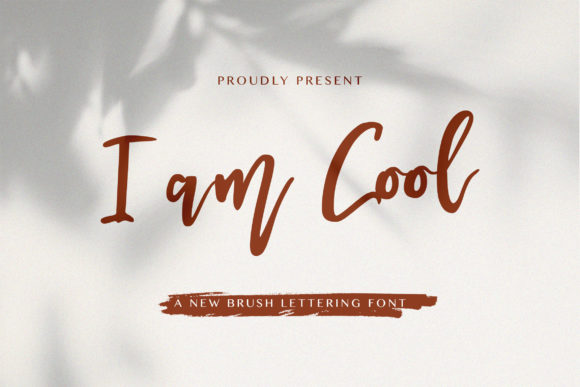
Unleash your inner creative genius with I Am Cool Font, a captivating script font that exudes a relaxed, hand-brushed charm. This exquisite font will effortlessly elevate your design projects, whether you're crafting logos, branding, or eye-catching headlines. Its exquisite curves and dynamic flow add an artistic flair that will leave a lasting impression on your audience.
Immerse yourself in the world of I Am Cool Font and experience the joy of creating designs that resonate with your unique style. Unleash your creativity and let your imagination run wild as you explore the endless possibilities this font offers. From elegant wedding invitations to trendy social media graphics, I Am Cool Font will effortlessly transform your ideas into stunning visual masterpieces.
With I Am Cool Font, you'll have the power to create designs that stand out from the crowd. Its hand-crafted charm adds a touch of authenticity and warmth, making your creations feel truly personal and captivating. Whether you're designing for print or digital media, I Am Cool Font will elevate your projects to new heights of excellence.
Step into the spotlight and let your designs shine with I Am Cool Font. Embrace the beauty of its fluid strokes and let your creativity flow freely. This font is perfect for adding a touch of elegance to your logos, branding, and marketing materials. Make a bold statement and leave a lasting impression on your clients and customers.